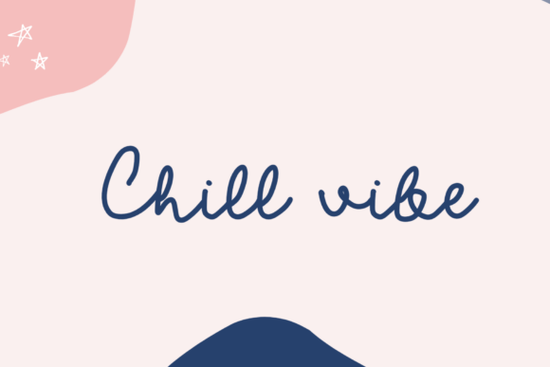
If you want to add a relaxed, approachable feel to your graphic design projects, the Chill Vibe Font is a highly practical choice. This handwritten cursive typeface features monoline, organic strokes that create a friendly and authentic look. Whether you are an independent planner designer, a boutique cafe owner, or a crafter working on casual product packaging, this typeface bridges the gap between cozy personal journaling and modern lifestyle branding. The medium weight provides enough visual presence for headers while maintaining a laid-back personality that appeals to modern consumers.
What makes this handwritten typeface stand out for small businesses?
Small business owners often look for typography that feels human rather than corporate. The gentle baseline bounce and wide loops in this script give it a medium structural weight that remains easy to read. When you design a menu for a local coffee shop or a label for handmade soap, you need a typeface that feels inviting without being difficult to parse. The soft, rounded terminals prevent the letters from looking too sharp or aggressive, which is ideal for wellness brands and artisanal goods. If you enjoy this aesthetic, you might also like the relaxed flow found in a simple handwriting style for your secondary text elements or subheadings. Matching the right typography to your brand identity helps build immediate trust with your target audience.
How can crafters and print-on-demand sellers use it?
For print-on-demand sellers, creating high-impact quotes for social media or apparel requires a typeface that catches the eye without being overwhelming. The soft rounded terminals of this cursive font make it perfect for cozy, authentic merchandise. It works beautifully on canvas tote bags, ceramic mugs, and minimalist wall art. The monoline design ensures that the letters cut cleanly on vinyl cutting machines like Cricut or Silhouette, saving you time during production. If your brand leans toward a slightly different mood, exploring an alternative like the Sederhana typeface can give you more options for your product catalog. For complete technical details, character sets, and licensing info, you can always check the official font page before starting your project.
Which projects work best with this medium-weight script?
Because it balances structure with a free-flowing personality, it adapts well to several creative niches. Here are a few specific ways to apply it across different mediums:
- Independent lifestyle planners: Use it for monthly headers, habit trackers, or daily motivational quotes to make the planning experience feel more personal.
- Boutique cafe menus: Highlight specialty drinks, seasonal lattes, or daily pastry specials to draw the customer's eye to high-margin items.
- Casual product packaging: Print it on craft paper labels for organic skincare, small-batch candle lines, or handmade soap wrappers.
- Social media graphics: Create shareable text posts with a warm, personal touch that encourages audience interaction and brand loyalty.
When building a diverse font library, it helps to have variety for different client requests. You can contrast this bouncy script with something more rustic, similar to the texture you get with the Americana Preserves design, or keep things sweet and flowing like the Wild Honey lettering. Having these variations ensures you can always match the exact tone your project requires.
How do you pair it with other typefaces?
Pairing a handwritten font correctly ensures your text remains legible across all formats. Since this script has a distinct personality and medium weight, pair it with a clean, geometric sans-serif for your body copy. This contrast keeps the layout grounded and prevents the overall design from looking cluttered or chaotic. Keeping the background simple and using ample negative space will also let the organic strokes shine without competing for attention. Always test your typography combinations on both desktop and mobile screens to ensure the gentle baseline bounce reads well at smaller sizes. Avoid using multiple script fonts in the same layout, as this often confuses the reader and dilutes your core message.
- Adjust the letter spacing slightly if the wide loops overlap awkwardly on specific word combinations.